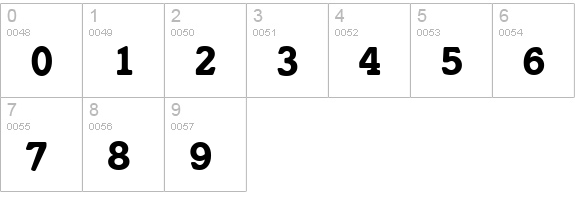
Istria-Bold is a strong, high-contrast variant in the Istria typeface family \xE2\x80\x94 well suited to headlines, attention-grabbing titles, and strong calls-to-action.
Introducing Istria-Bold font, a bold and eye-catching typeface that exudes elegance and sophistication. With its strong, clean lines and distinct presence, Istria-Bold is the perfect choice for projects that require a touch of modernity and style. This versatile font is ideal for a wide range of design applications, from branding and packaging to posters and social media graphics. What sets Istria-Bold apart is not only its striking aesthetics but also its incredible versatility. Whether you are looking to make a bold statement or add a touch of refinement to your designs, Istria-Bold delivers every time. Its bold and commanding presence makes it a standout choice for headlines and titles, while its clean and legible design ensures readability across various platforms. Best of all, Istria-Bold is available for free download exclusively at FontsMarket.com. This means you can elevate your design projects without breaking the bank. Don't miss out on the opportunity to add this stunning font to your collection and take your designs to the next level with Istria-Bold.